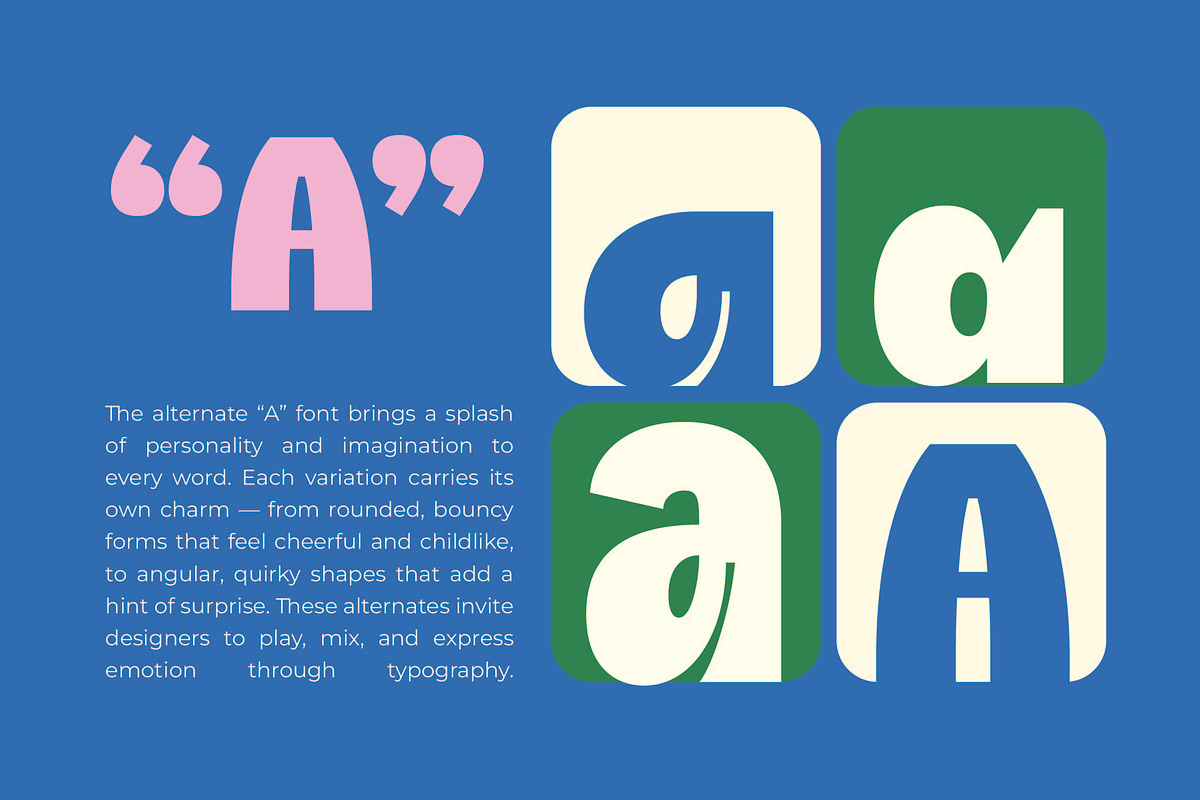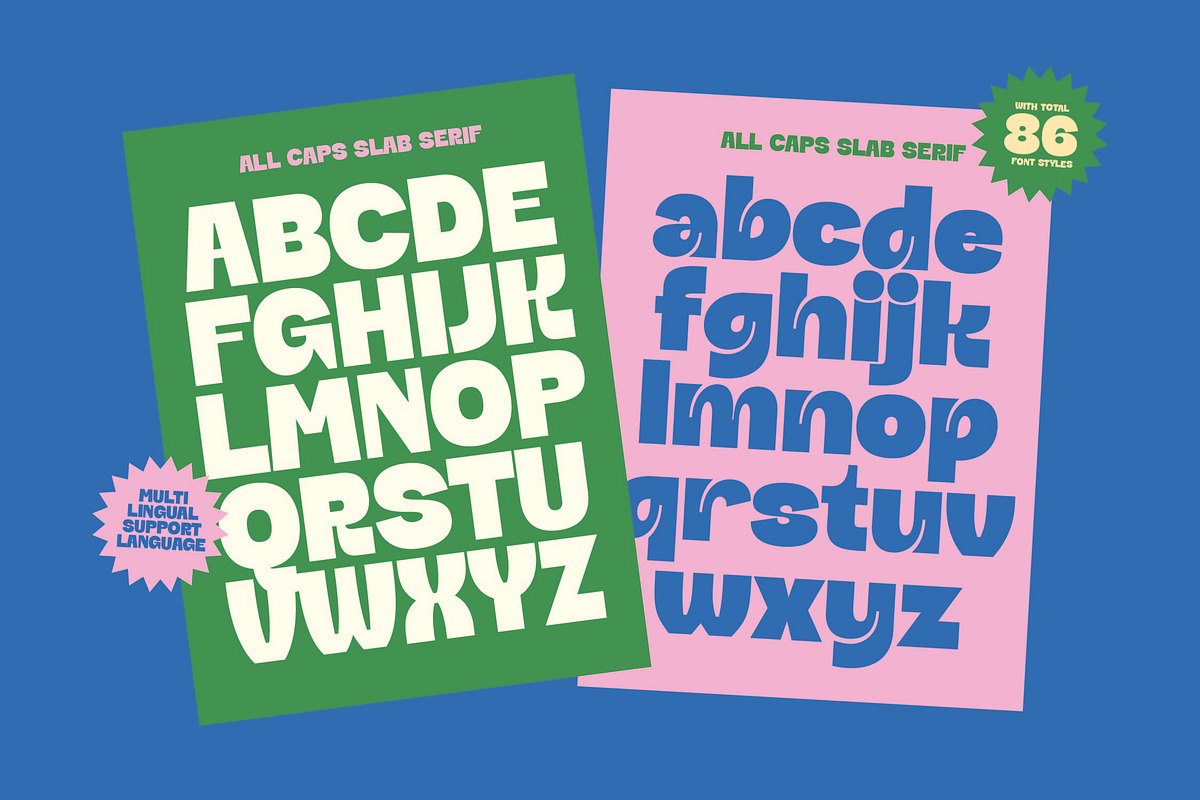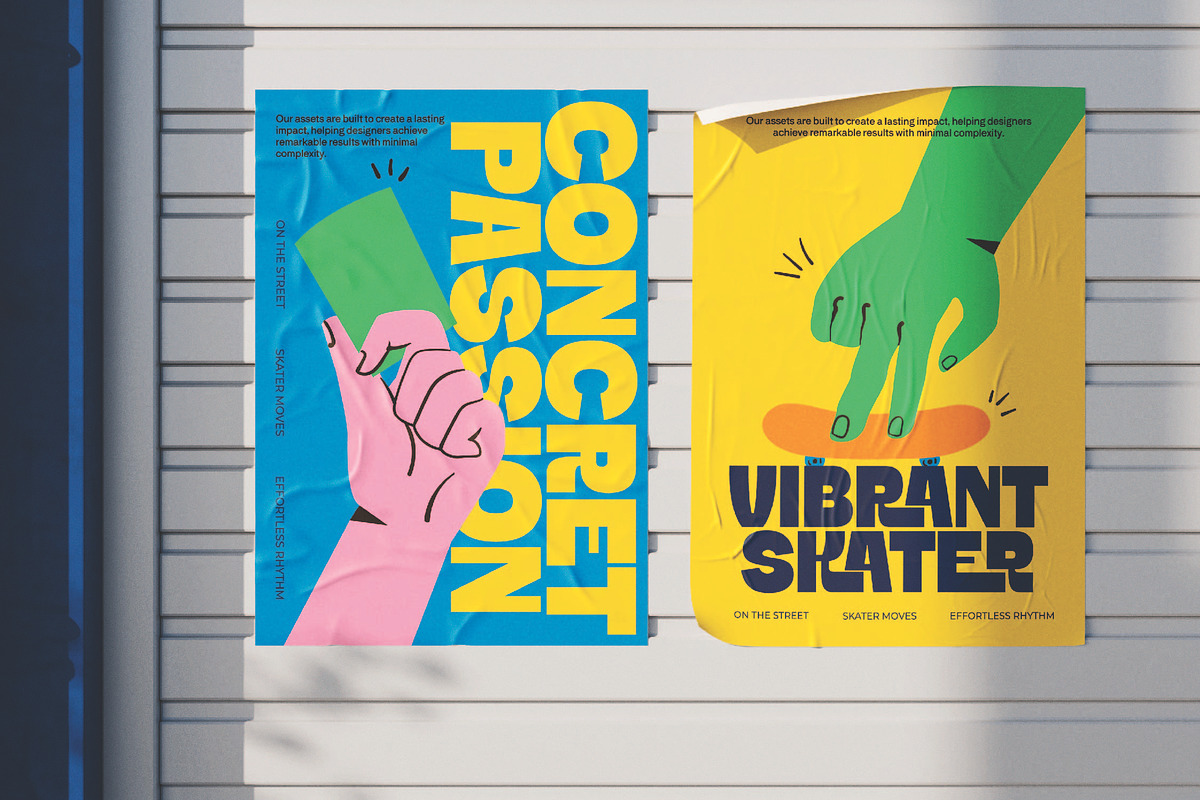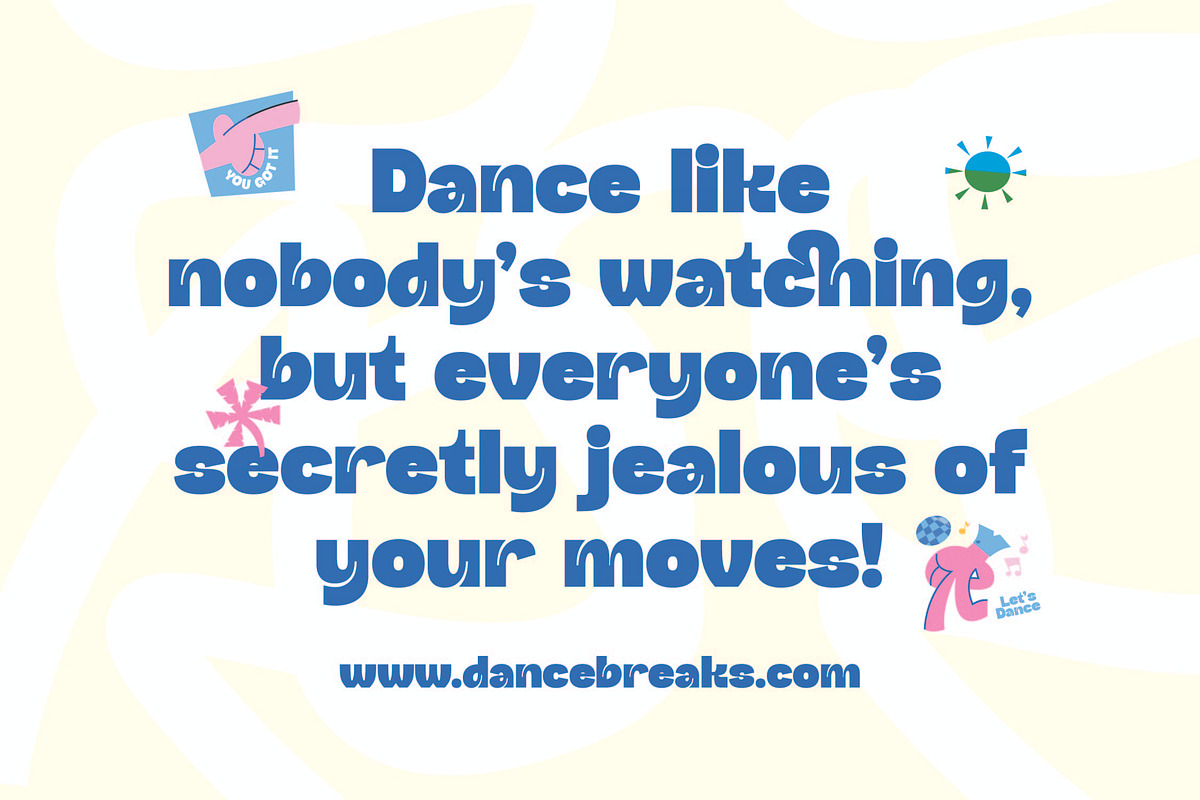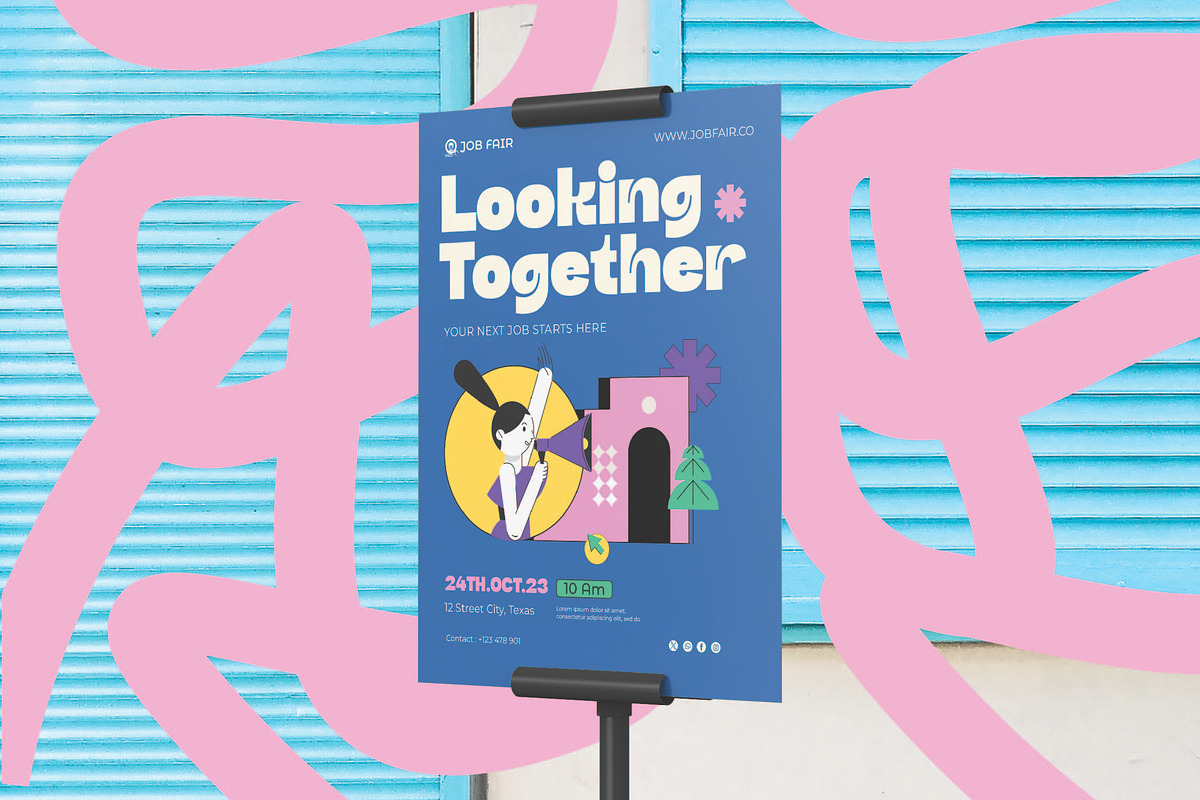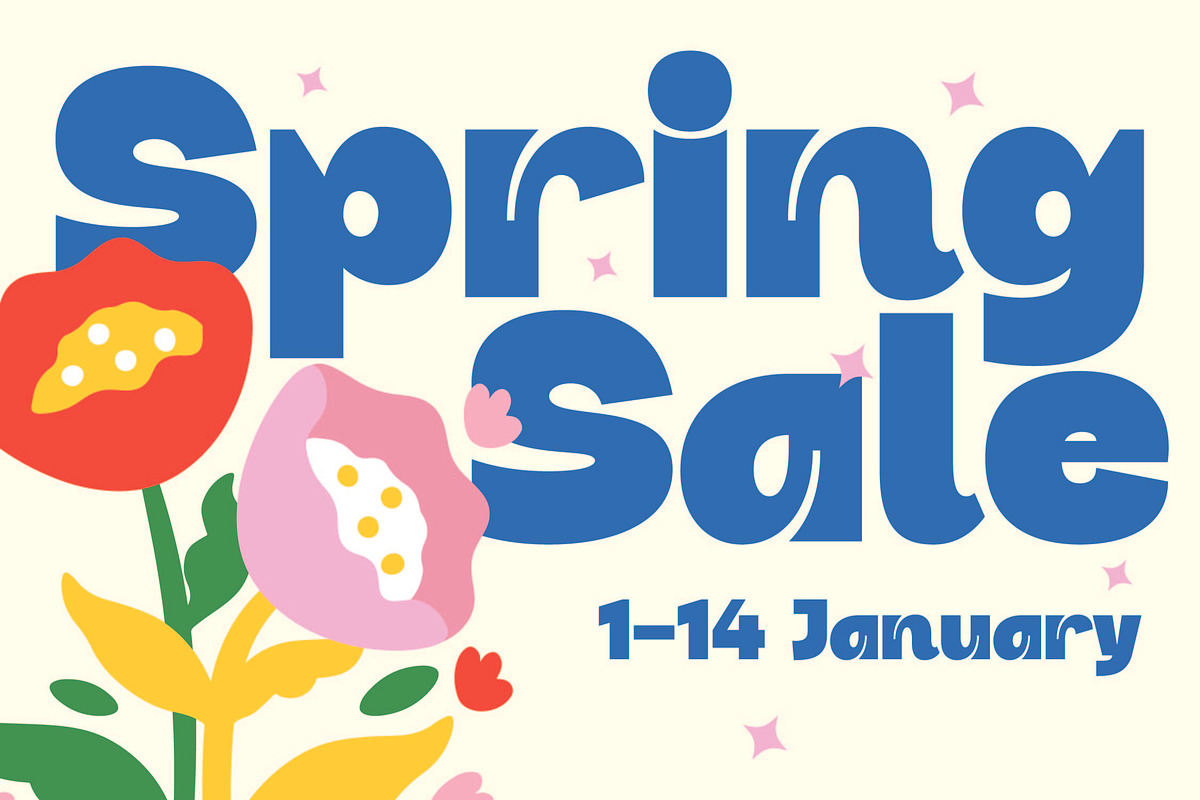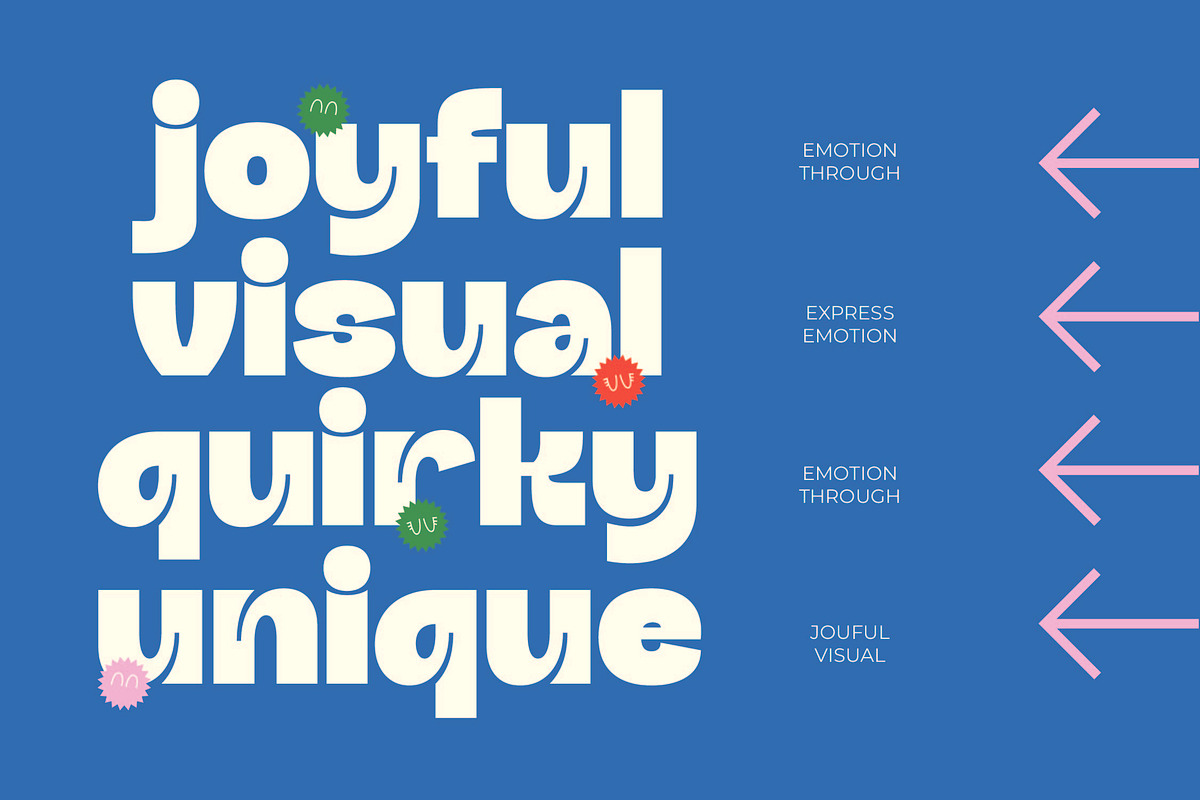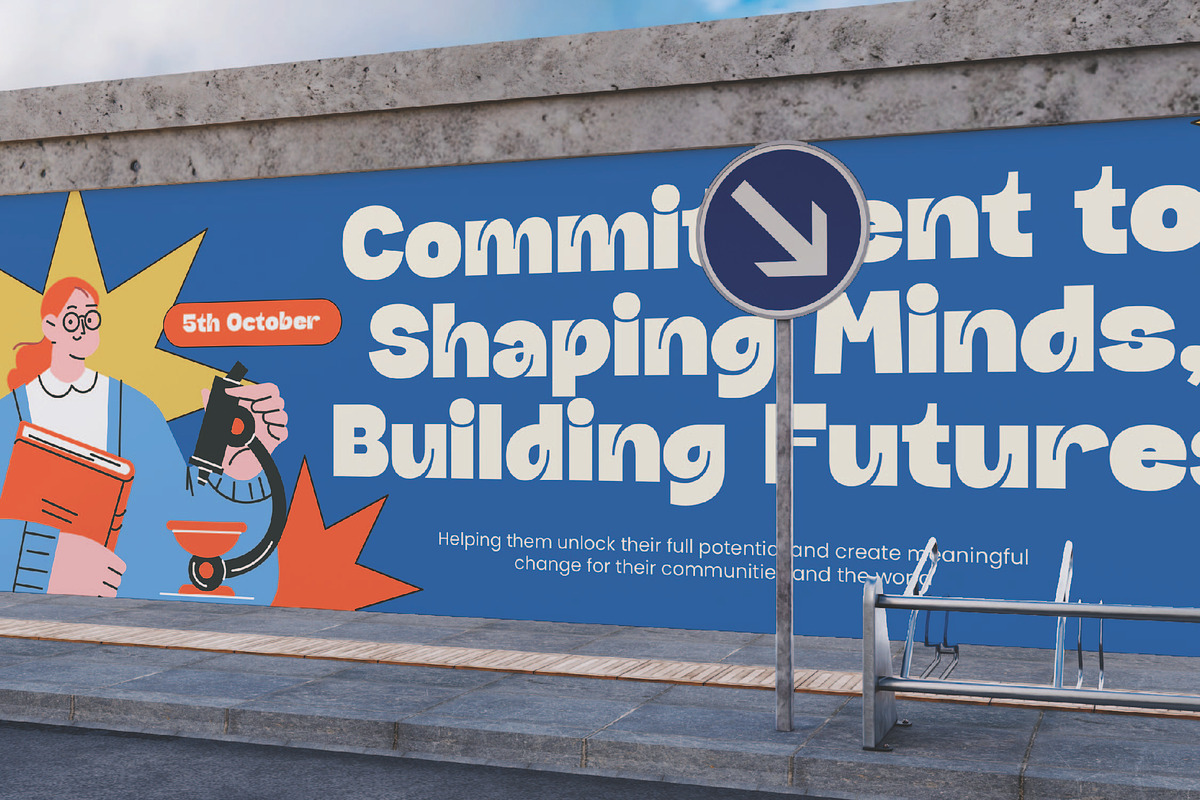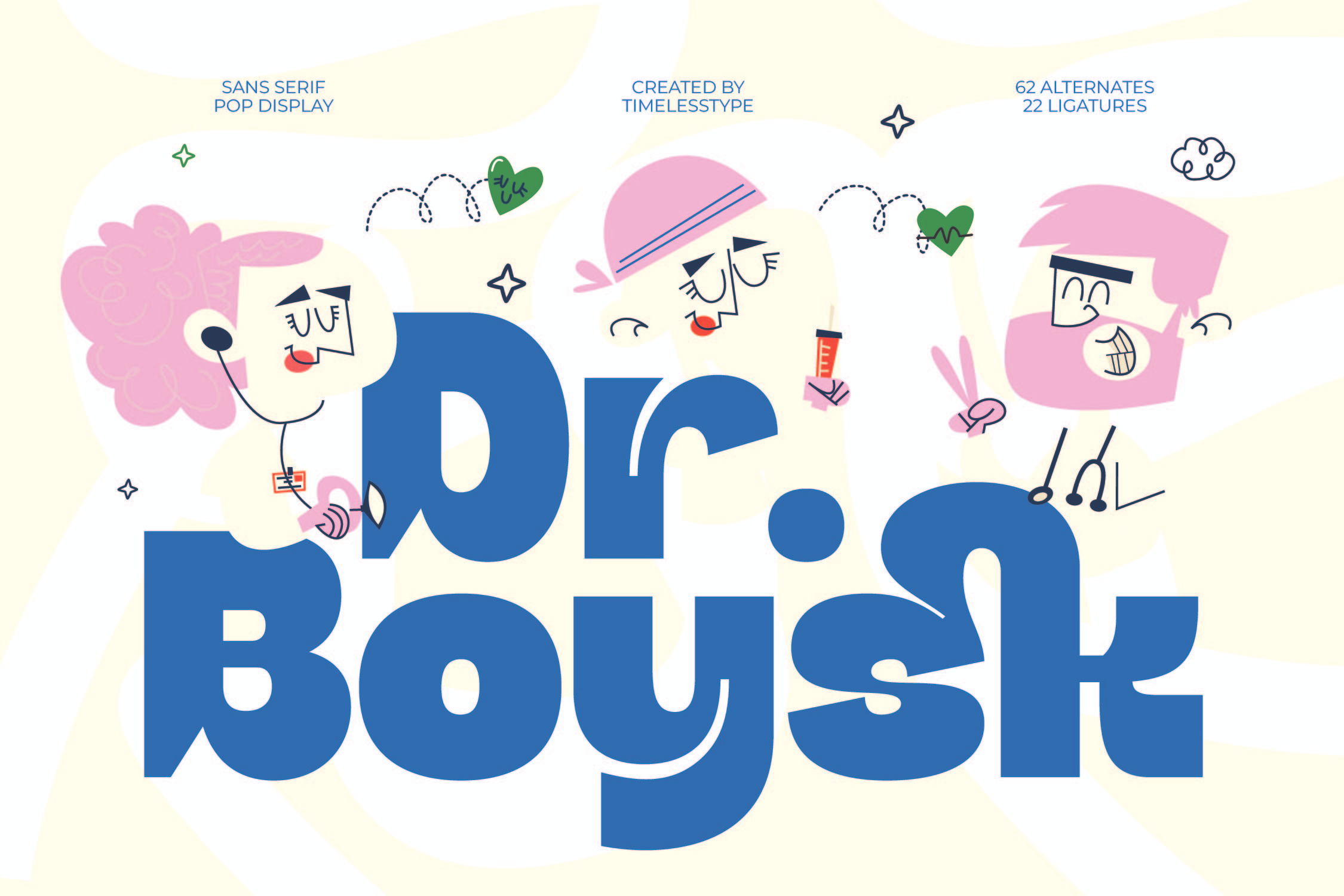
Dr Boysk Modern Pop Display Font
Experience the vibrant energy of Dr Boysk, a typeface designed to inject life and personality into every pixel of your design canvas. This font isn't just a set of letters; it is a statement of bold confidence and artistic flair.
Inspired by the whimsical charm of mid-century cartoon aesthetics and 1960s pop culture, this typeface captures a sense of nostalgic joy. It evokes memories of classic medical illustrations reimagined through a lens of modern, playful geometry.
This modern serif display offers a unique blend of thick strokes and unexpected curves that provide an undeniable luxury typography feel. It functions as a high-contrast serif in terms of visual weight, making it an essential editorial font for projects requiring maximum branding impact.
Tapping into the current modern serif trend, this typeface stands out with its bouncy rhythm and geometric precision. It is the perfect choice for designers looking for editorial display fonts that embrace character-driven typography to tell a compelling visual story.
Transform your next project with a font perfectly suited for logo design, branding, and high-end editorial layouts. From eye-catching packaging to contemporary wedding invitations and avant-garde fashion lookbooks, its versatility knows no bounds.
Packed with creative potential, the set includes unique ligatures and expressive alternates to customize your text. Complete with a comprehensive suite of multilingual support and international characters, it ensures your message reaches a global audience with ease.
Ligatures and Alternative Style Stylistic Set